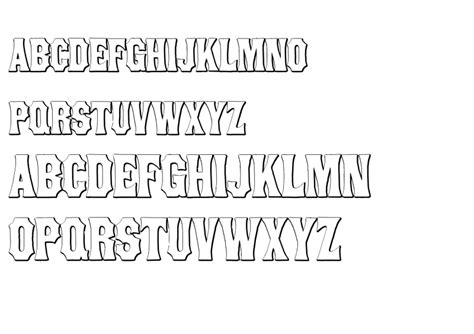
Score Big: MLB Block Font Free Download Guide
Hey guys! Ever wanted to give your projects a serious baseball vibe? Like, the kind that screams “home run” every time? Well, you’re in the right place! We’re diving deep into the world of the MLB block font free download , a fantastic way to capture that iconic Major League Baseball look. This guide is your ultimate resource, packed with everything you need to know about getting your hands on these awesome fonts, using them like a pro, and ensuring you stay on the right side of the legal fence. So, grab your mitt, get comfy, and let’s knock this out of the park! We’ll explore where to find these fonts, how to download them safely, and even some cool ways to use them in your designs. From creating team logos to designing game day posters, the possibilities are endless. And the best part? We’re focusing on the MLB block font free download options, so you can get started without breaking the bank. Let’s face it, who doesn’t love a good freebie, especially when it comes to leveling up your design game? We’ll also touch on important topics like licensing and usage rights to keep you informed. Get ready to transform your designs with the power of the MLB. Ready to step up to the plate and learn more about this awesome font? Then let’s begin!
Unveiling the MLB Block Font: What Makes It Special?
Alright, let’s talk about what makes the MLB block font so special. What is it that captures our attention and makes us think of baseball the instant we see it? The answer is more complex than you might imagine. Firstly, this font isn’t just a font; it’s an emblem of Americana, tradition, and the love of the game. It embodies the spirit of baseball, a sport steeped in history, passion, and a connection with fans that spans generations. Think about the classic team logos, the bold lettering on jerseys, and the iconic signage at stadiums. This font is a direct visual link to all of that, and it evokes a sense of nostalgia and excitement that few other fonts can match. It’s instantly recognizable and has the power to grab attention and communicate a message effectively. Secondly, the design itself is inherently strong and versatile. The block letters are typically bold, clean, and easy to read from a distance. This makes them ideal for a wide range of applications, from headlines and titles to logos and promotional materials. The clarity of the font ensures that the message is always front and center, regardless of the size or the background. That’s why the MLB block font is perfect for creating impactful designs. It also adds a touch of boldness and professionalism. Finally, the MLB block font carries a cultural weight that goes beyond mere aesthetics. It’s more than just letters on a page. It represents a shared experience, a common bond among fans, and a symbol of everything that is great about baseball. Using this font in your designs allows you to tap into that rich heritage and connect with your audience on a deeper level. This font isn’t just a design choice; it’s a statement. And the best thing is the many free downloads for the MLB block font ! With this information, you can get ready to take the field.
The Characteristics of the MLB Block Font
Let’s break down the core characteristics that define the MLB block font . This will help you identify the real deal when you’re searching for a free download. These are the key elements to look for in every font. First off, you’ll notice a strong emphasis on boldness . These fonts are designed to stand out, and their thick strokes ensure maximum visibility. The MLB block font is all about making a statement, so expect heavy, impactful letterforms. Then, we have clean lines . The best fonts boast crisp, well-defined edges, which contribute to the font’s readability and professional appearance. The focus is on a structured, organized design that looks good at any size. This is a crucial element of the font’s effectiveness. Thirdly, uniformity is key. Block fonts typically feature consistent stroke widths throughout the letters. This creates a sense of harmony and balance. So, when looking for a free download, pay attention to these things. Another characteristic is the uppercase dominance . While some fonts may include lowercase letters, the MLB block font is most often associated with its uppercase counterpart. The emphasis is on large, powerful lettering. This makes it ideal for titles, headlines, and logos. Finally, there is a slight modification in some fonts . Some versions of the MLB block font include subtle design variations. It might be rounded corners, or slight modifications to the letter’s structure. These modifications set apart fonts from the rest. The best fonts, especially the free download ones, will balance those characteristics. Understanding these features will help you pick a great font for your project.
Tips and Tricks for Designing with the MLB Block Font
Let’s get into some tips and tricks to help you create stunning designs with your MLB block font . First, consider the purpose of your design . What message do you want to convey? The MLB block font works best for conveying strength, tradition, and excitement. Tailor your design to match that mood. Then, experiment with colors . Baseball teams use a lot of colors. Think about the team colors you are using. Make sure they complement each other. Consider using gradients, shadows, and outlines to add depth and visual interest. Next, typography and layout are key. Play with different font sizes, weights, and letter spacing to create visual hierarchy. Make sure your text is legible. The MLB block font is bold, so it’s most effective in headlines and short blocks of text. In addition, consider the background . Contrast is important. Make sure your text stands out. You can also add textures. Finally, always check for readability . Make sure your design is easy to understand. You can use your MLB block font free download in many ways. You can use it in team logos or on banners, and posters. With a bit of practice, you can create winning designs.
Licensing and Usage Rights: Knowing the Rules of the Game
Alright, before you get too deep into your design projects, let’s talk about the rules of the game: licensing and usage rights . Understanding this is critical. Using a font without the proper license can lead to legal issues. You want to avoid any trouble, right? First off, free fonts often have limitations . Always check the license. Some fonts are only for personal use. Others allow commercial use. Make sure you know the terms before using the font. Secondly, personal use means you can use the font for non-commercial projects. This includes personal websites, social media, and designs that are not intended to generate revenue. Third, commercial use is anything that generates profit. This includes logos, marketing materials, and products that are sold. If you plan to use the font commercially, make sure it allows that. Fourth, license types can vary . Some fonts have a single-user license. Others have multi-user licenses. Always read the license agreement carefully. Fifth, attribution may be required . Some licenses require you to credit the font designer. This is usually done by including their name in the design. Lastly, font foundries and designers hold the copyright. They have the right to control how their fonts are used. Always respect the designer’s rights. By understanding these key points, you can use your MLB block font free download legally. And you can focus on your designs.
Common Licensing Scenarios and How to Handle Them
Let’s break down some common licensing scenarios and how to handle them. First, personal projects: If the license allows for personal use, you’re good to go. This includes personal blogs, social media posts, and personal invitations. Secondly, small business use: Many free fonts allow for small-scale commercial use. If you’re using the font for a small business, check the license. Make sure it allows commercial use. Thirdly, large-scale commercial use: If you need the font for high-volume commercial projects, you may need a commercial license. This will involve purchasing the font from the designer or foundry. Fourth, logo design: Creating a logo for a business requires careful consideration. Make sure the license permits the font’s use in a logo. Also, be aware of trademark issues. Fifth, website design: When using the font on a website, make sure the license allows for web embedding. Some fonts have different licenses for web use. Lastly, avoiding copyright infringement: Never assume that a font is free to use. Always read the license. If you’re unsure about the terms, it’s always best to err on the side of caution. Consider the usage, and follow the guidelines. Following these best practices will help you avoid problems. So, respect the licensing terms to make sure you’re protected.
Conclusion: Your Home Run Design Journey
Congrats, guys! You’re now equipped with the knowledge and resources to find, download, and use the MLB block font free download like a pro. From understanding the font’s characteristics to navigating the licensing landscape, you’re ready to create some seriously impressive baseball-themed designs. Remember to always prioritize safety when downloading fonts. Read the licensing agreements carefully. Experiment with different design techniques. And most importantly, have fun! The world of design is all about creativity and exploration. So, go out there, get inspired, and start creating. Whether you’re designing a team logo, a social media post, or a game day poster, the MLB block font is your secret weapon. With a little practice and the right approach, you can hit a home run every time. So, go out there and design! Keep the passion for the game alive. Now, go make some amazing designs!